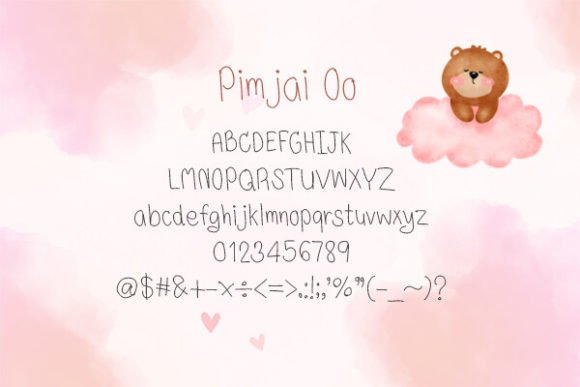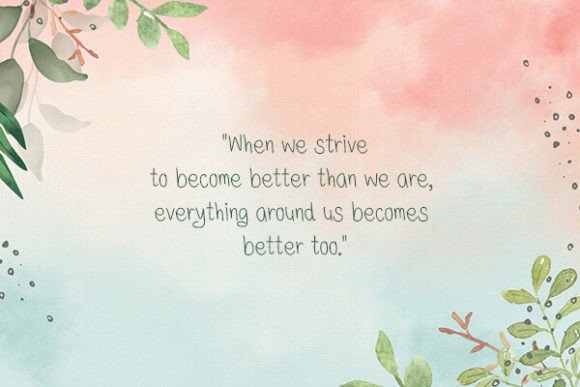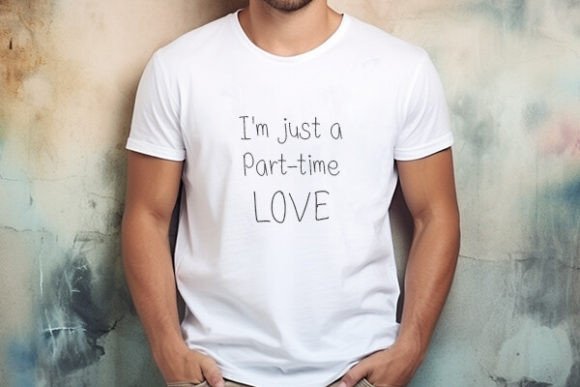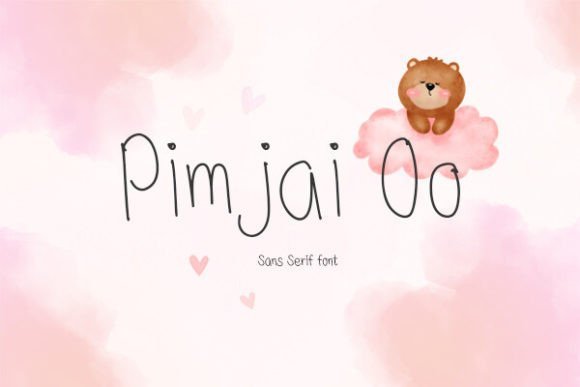
Introduction to Pimjai Oo Font
Pimjai Oo is a cute, Good mood and playful handwritten font.
It informal style and casual vibe It would be awesome to your fun projects or diary planner, on wedding invitations, thank you cards, quotes, greeting cards, logos, posters, blogs, bag, T Shirt, clothing and other designs.